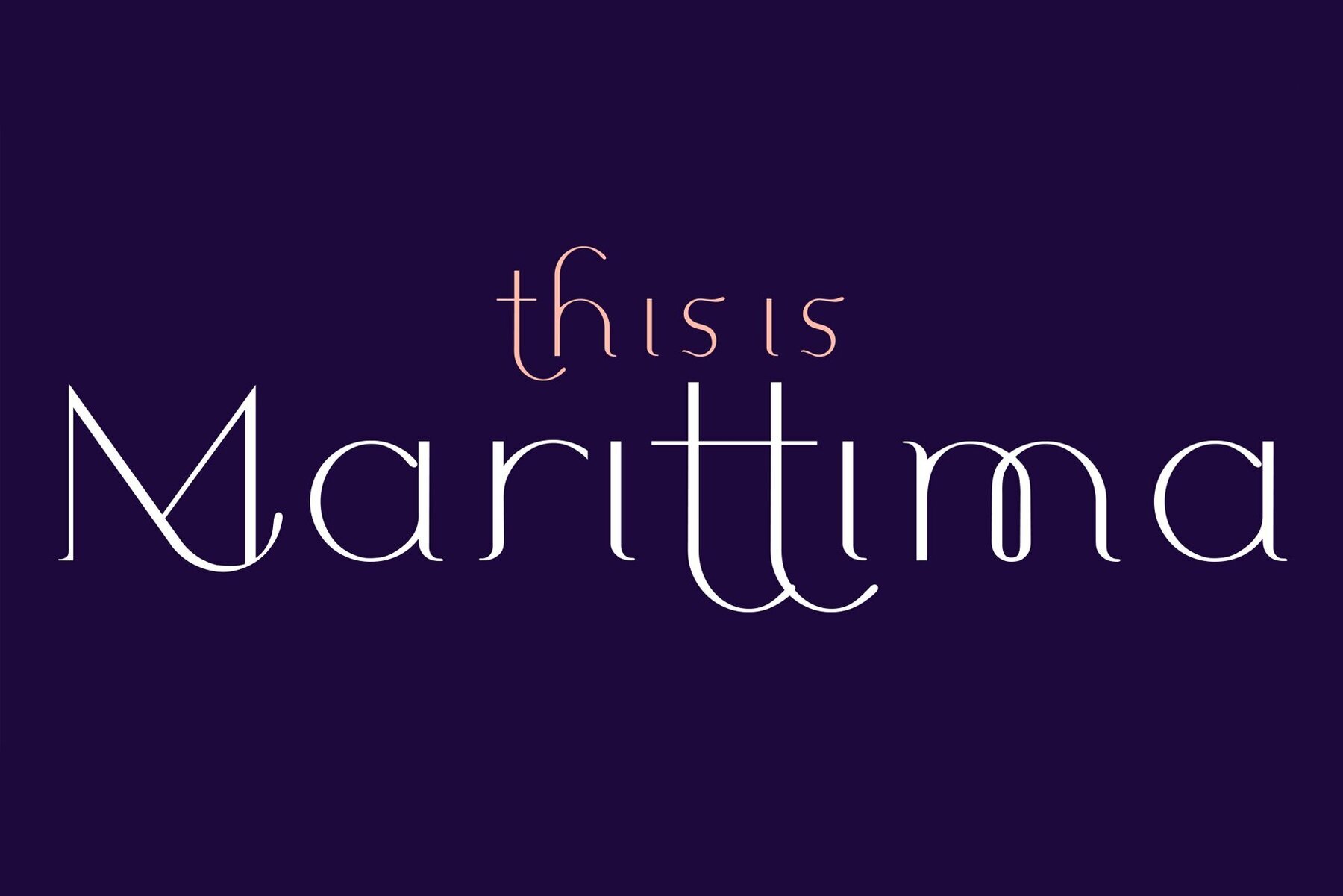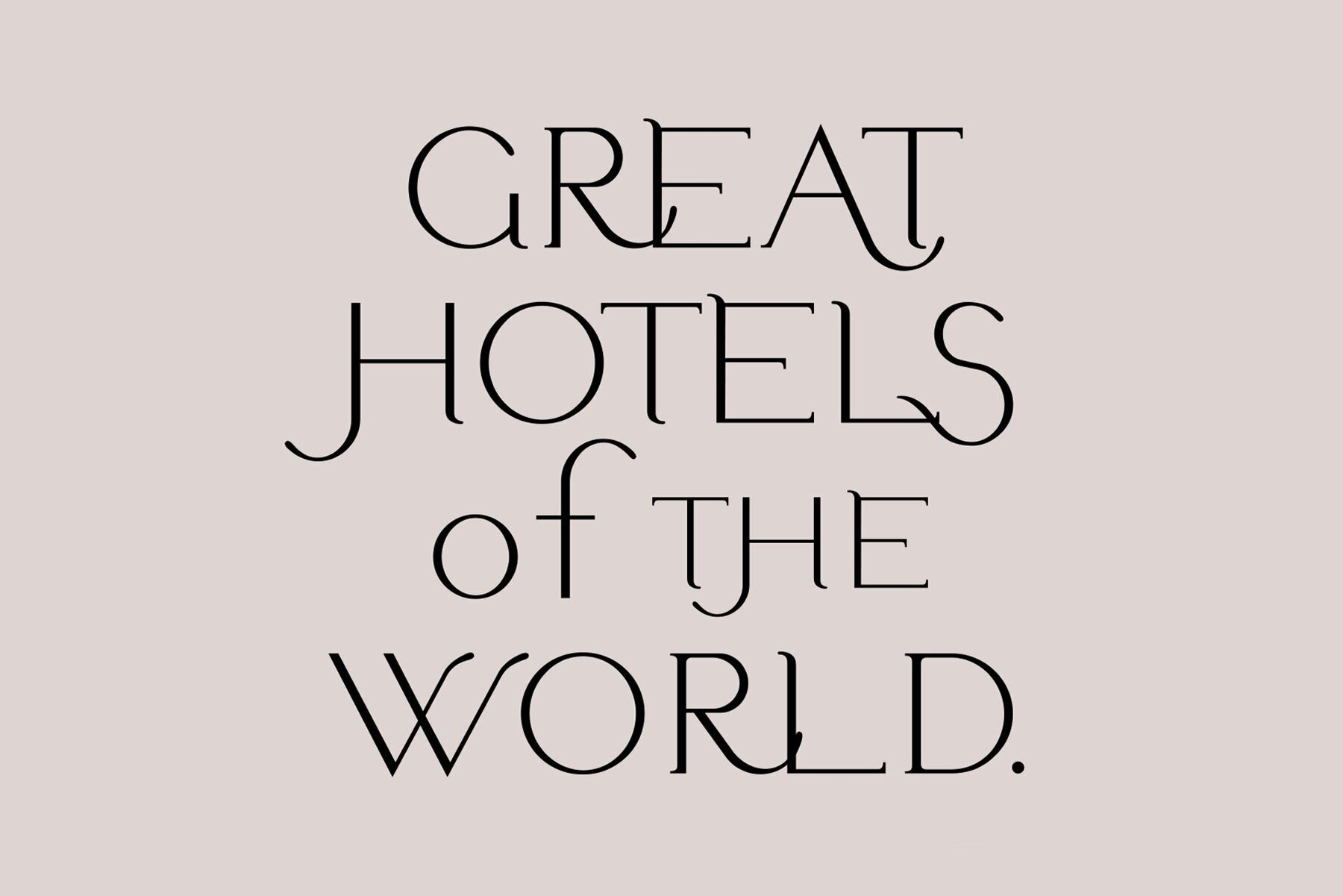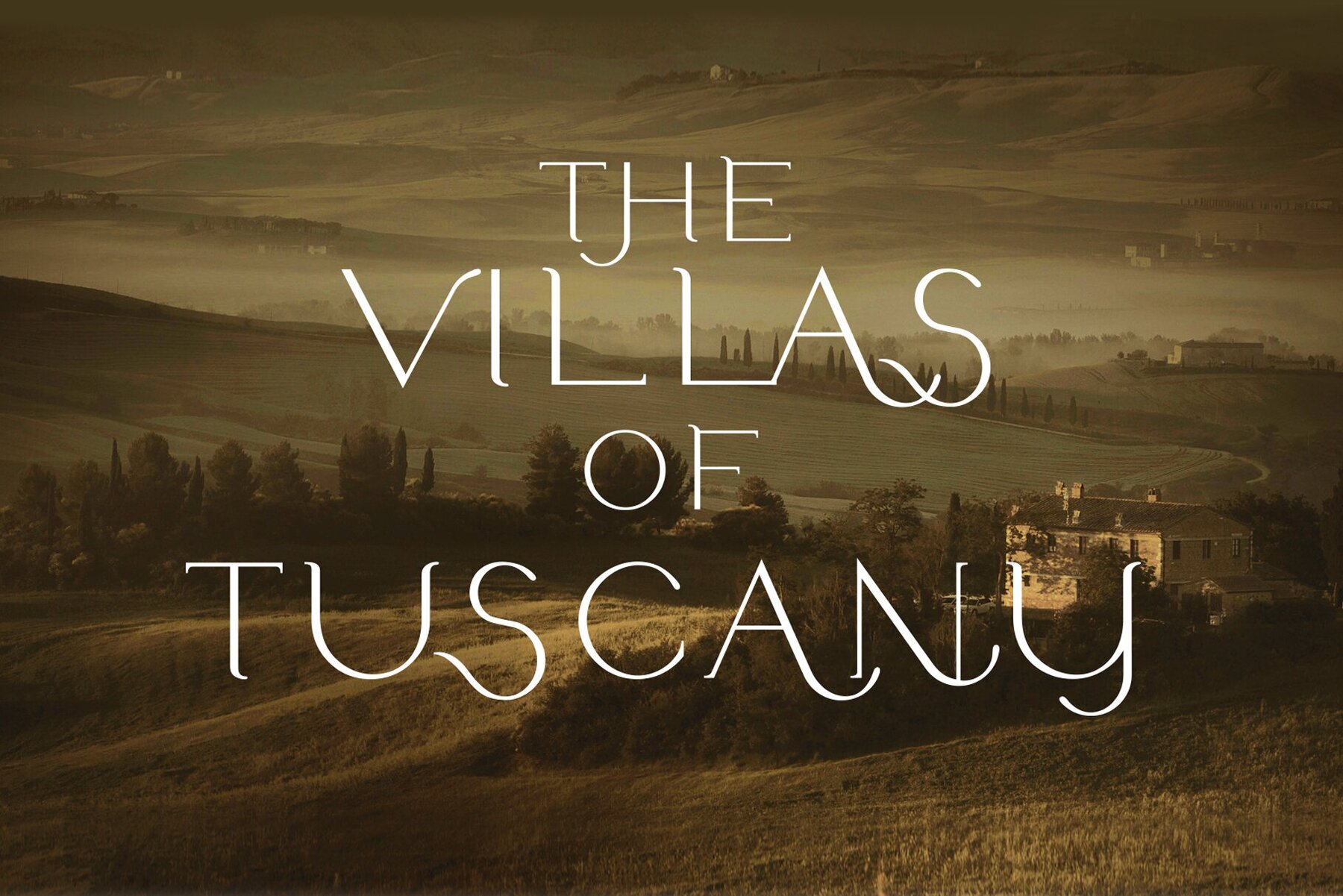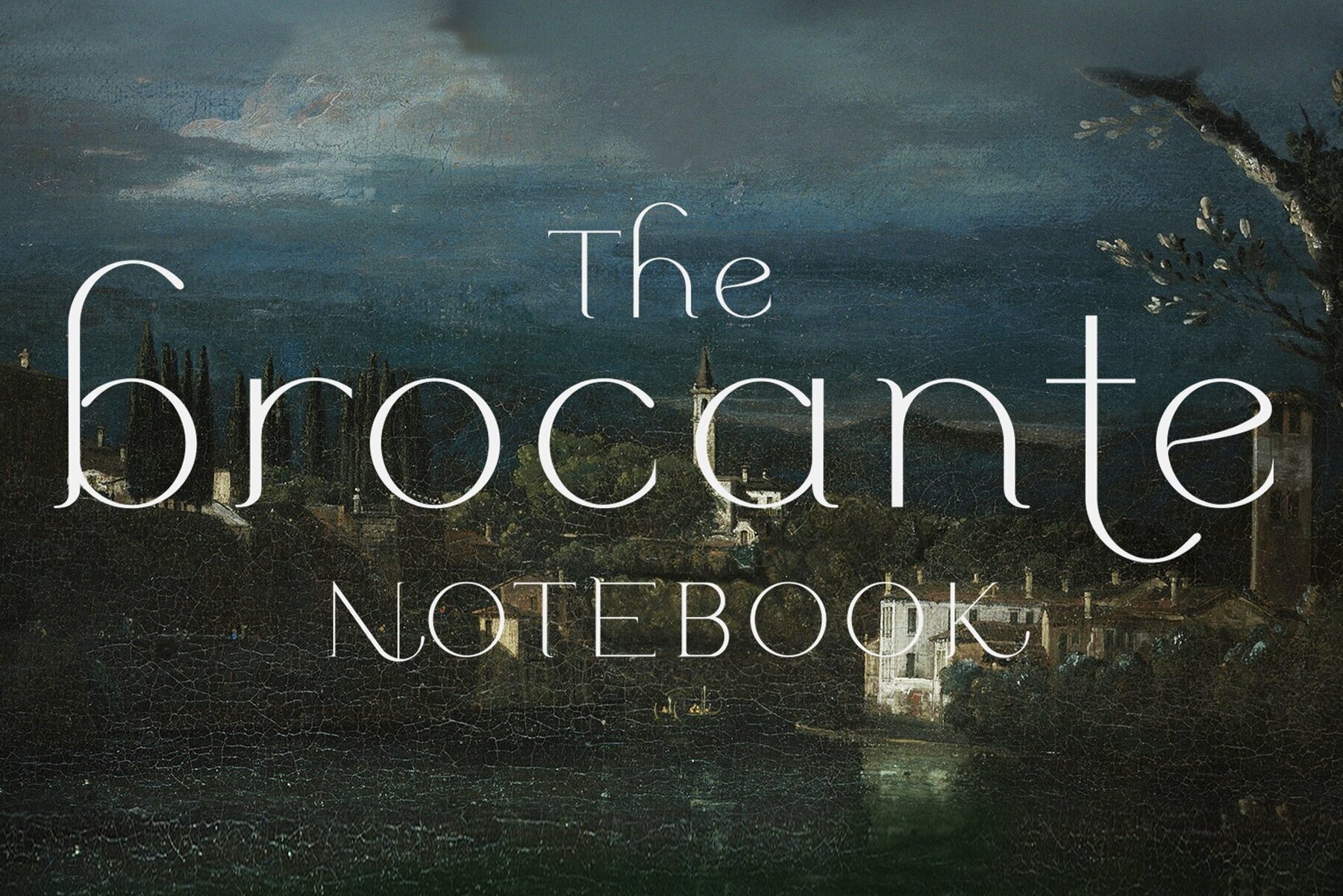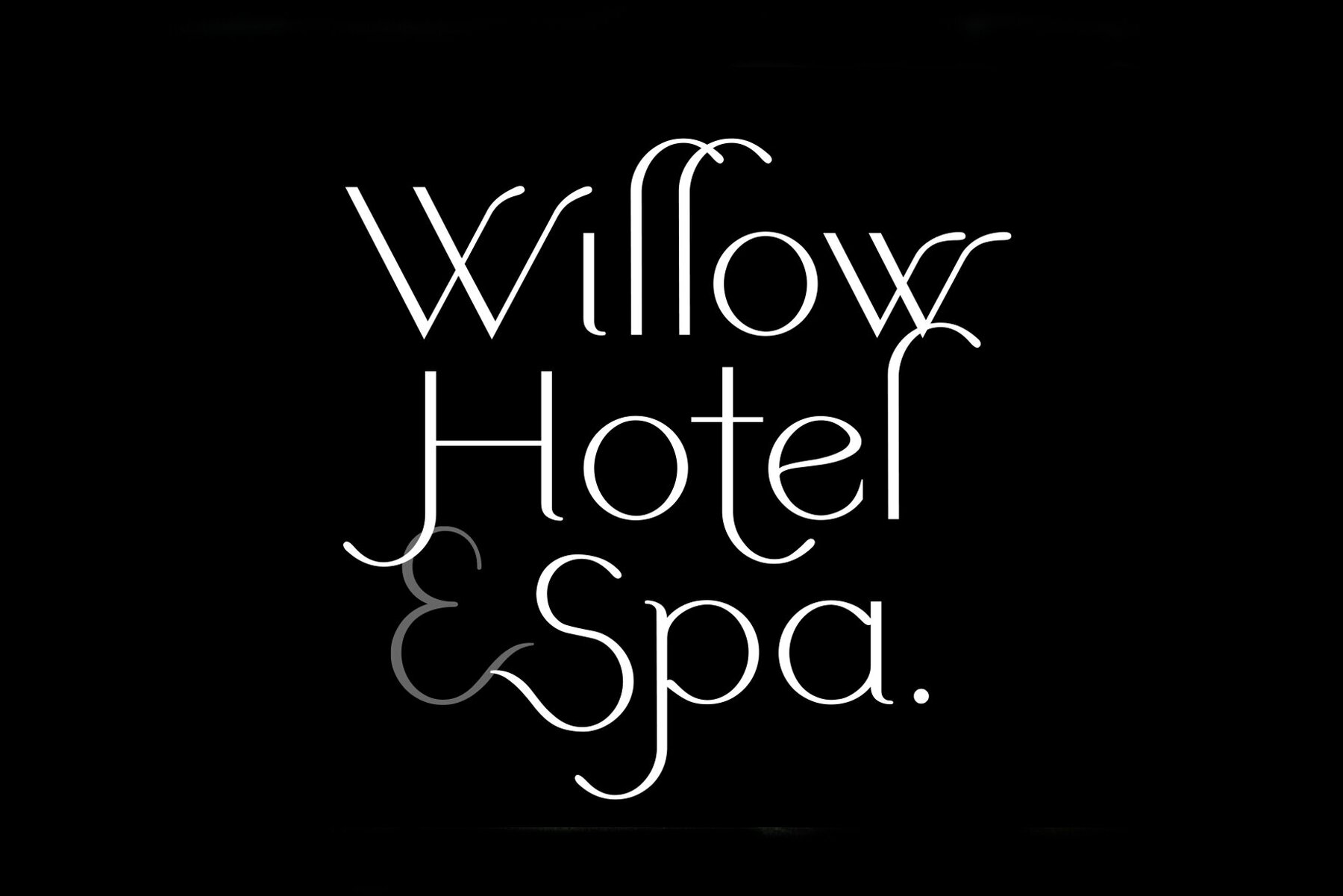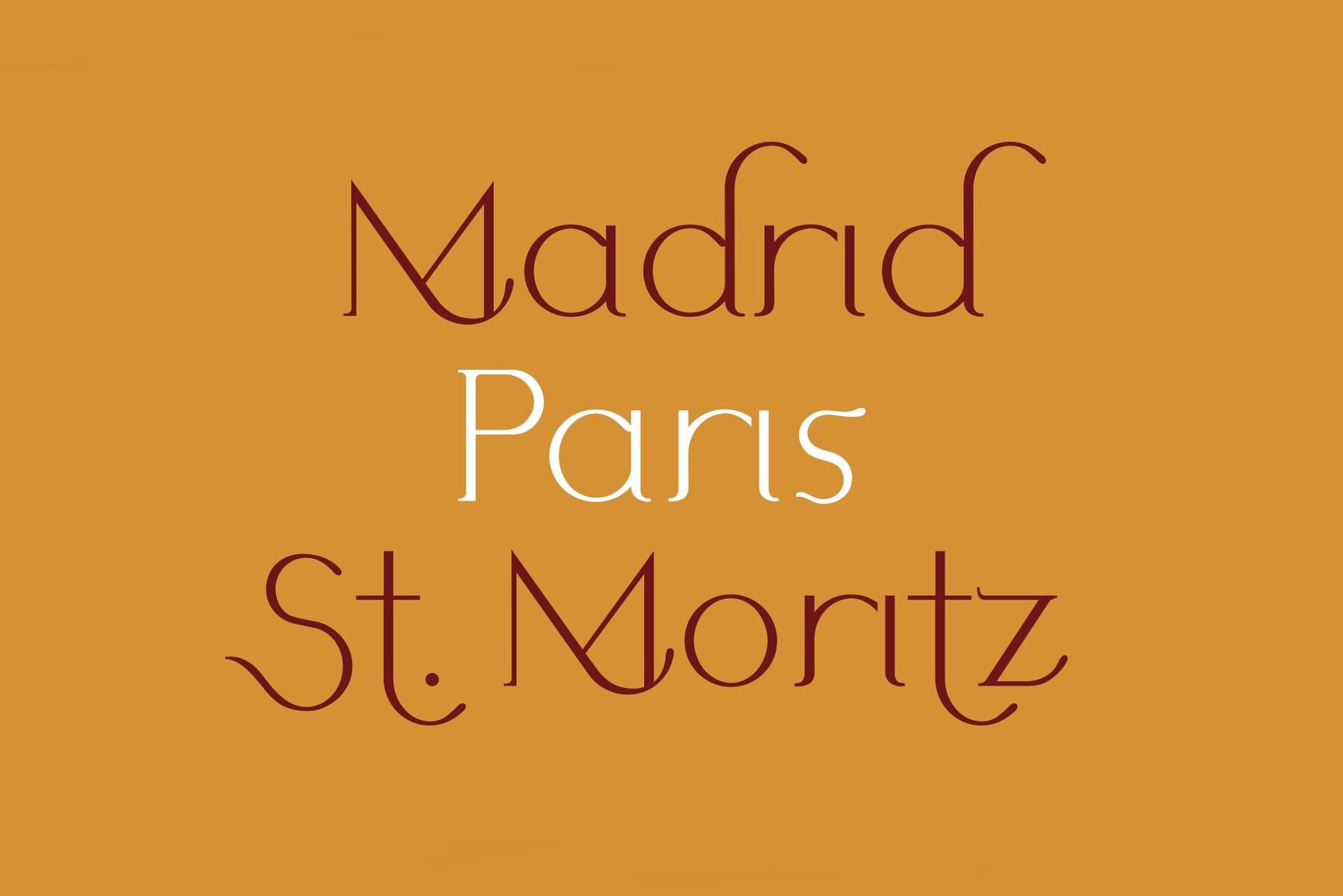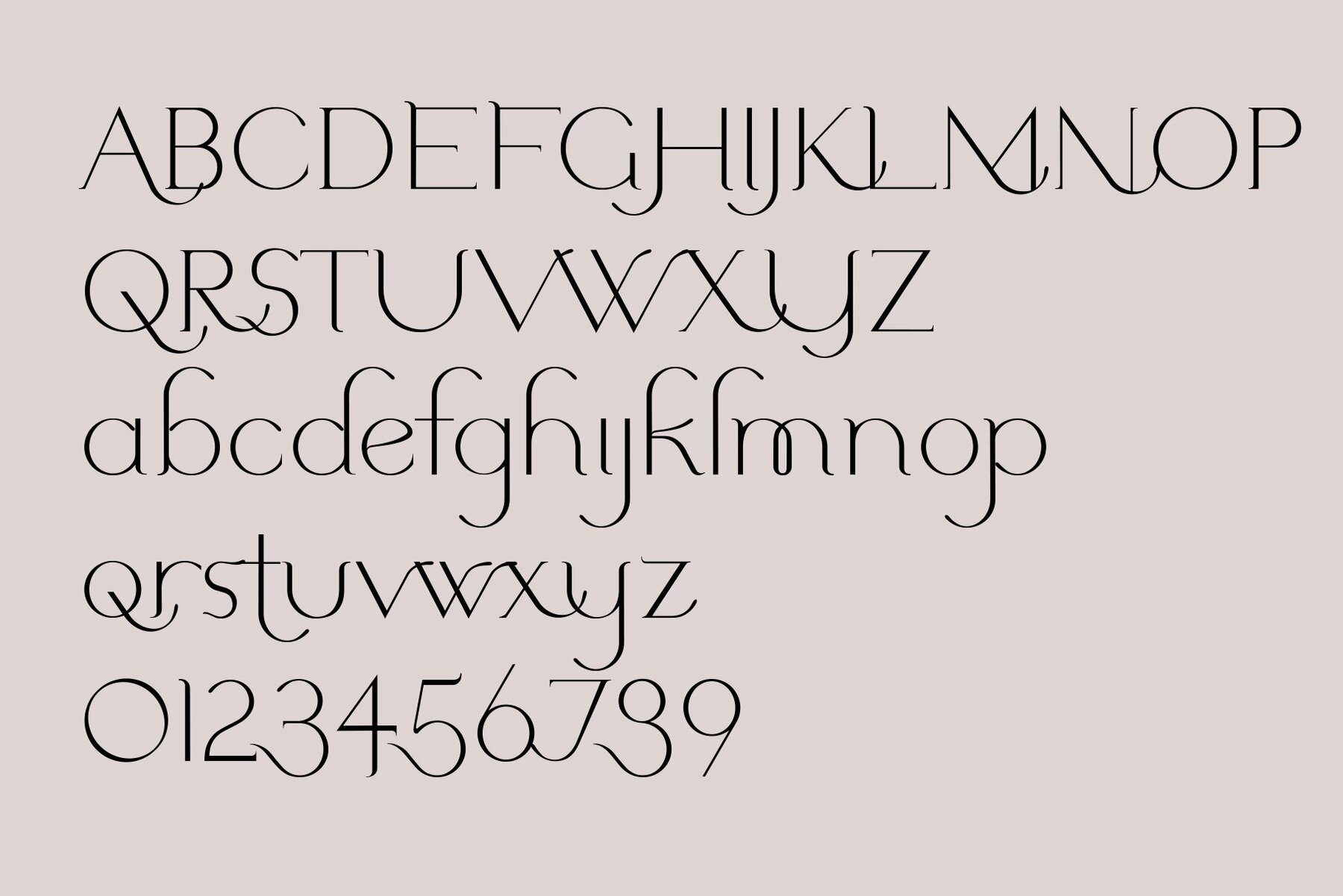
Marittima Font
Marittima is a beautifully expressive new classical font for designers from LostandFoundry. This typeface has unique characteristics and embraces fluidity, chic and luxury, without being too traditional, as it has a modern feel to it. When you need a distinctive serif font with its own identity that bridges the classic and the modern, Marittima is perfect to add to your type catalogue. Use Marittima in your design projects - in headlines, logos, packaging design, wedding designs and text. And online, in your websites, blogs, vlog titles, Youtube creator titles and social media post titles. Marittima comes in 2 weights and supports French, German and other European languages.